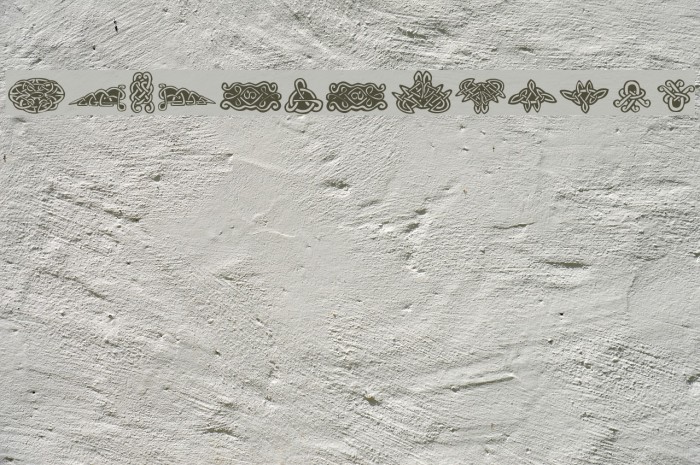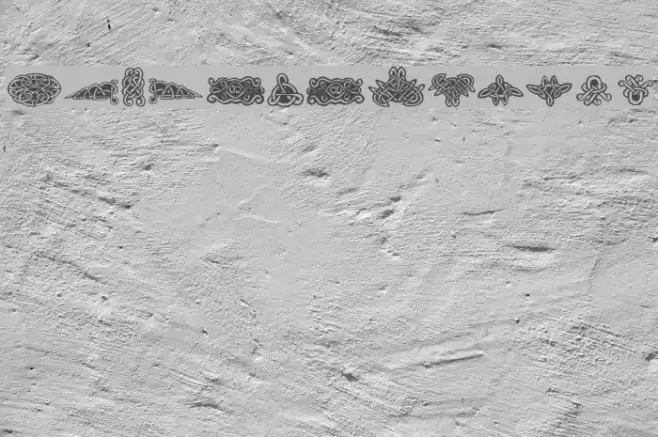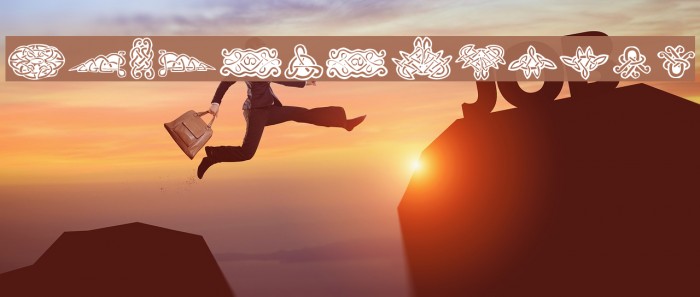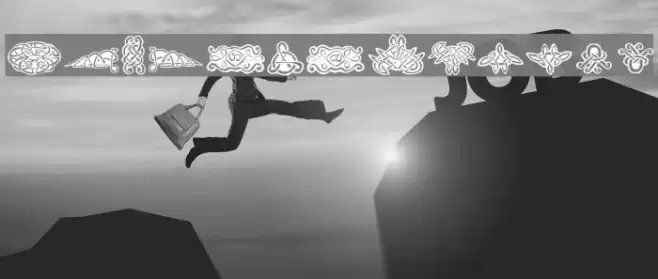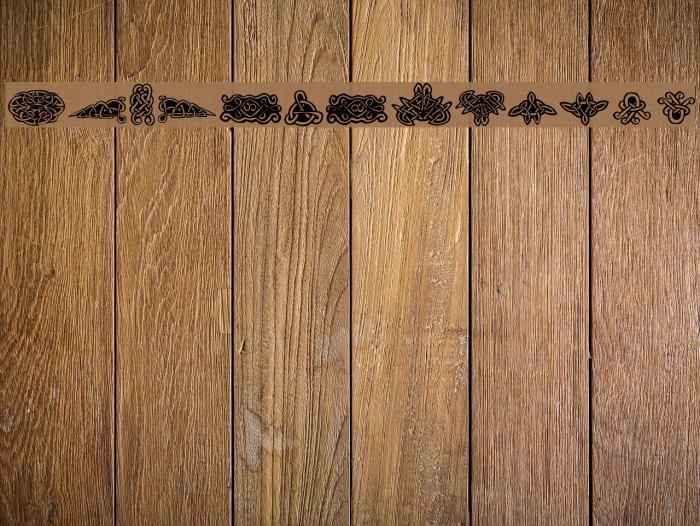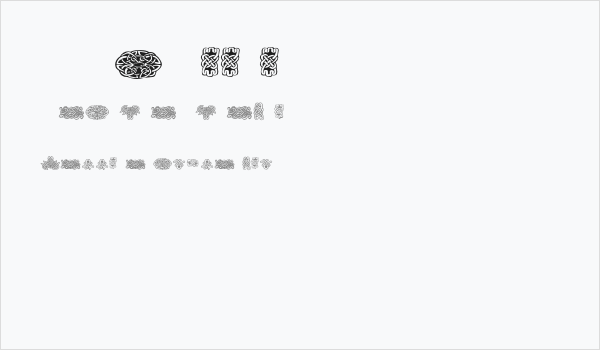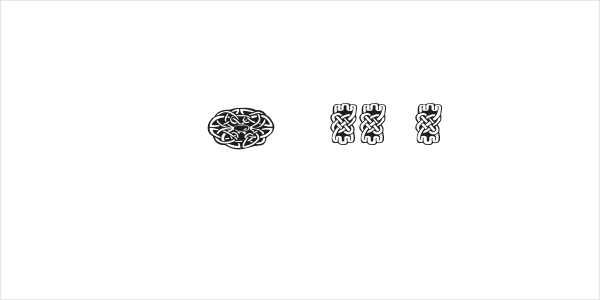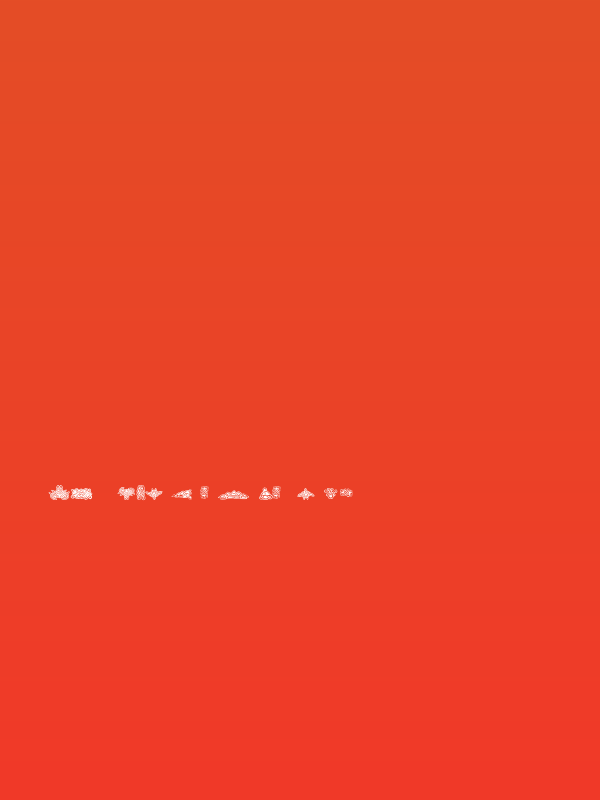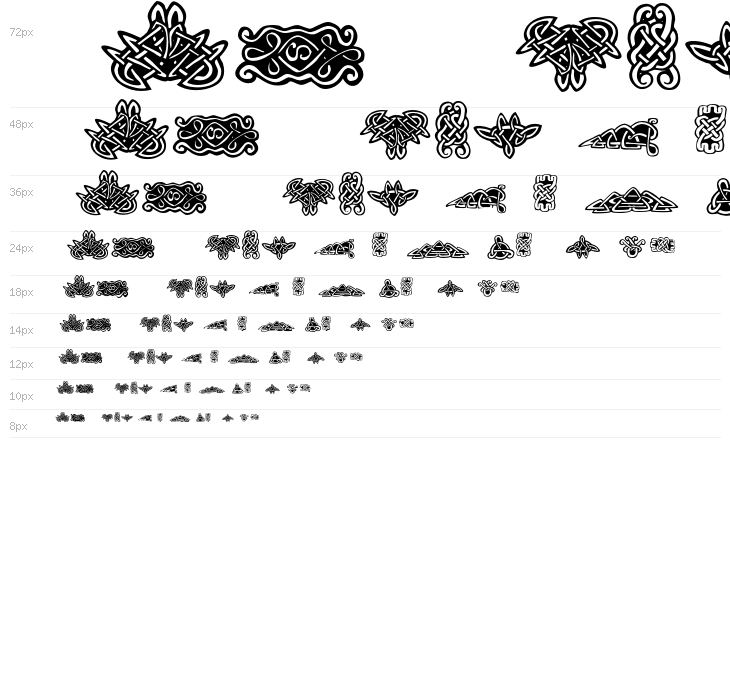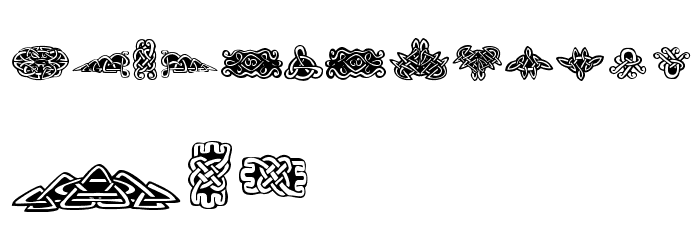
FE-TattooNo.1 Font
FE-TattooNo.1 Description
This font features intricate, decorative designs reminiscent of traditional tattoo art. Each character is crafted with elaborate patterns and interwoven lines, creating a sense of depth and complexity. The style is bold and striking, with a strong emphasis on ornamental aesthetics. The characters are not typical alphanumeric symbols but rather unique artistic representations, making it ideal for creative and decorative purposes. The font's design is consistent throughout, maintaining a cohesive look that is both visually captivating and artistically expressive.
| Use Case | Logos, Decorative art, Tattoos |
| Proposed Projects | Ideal for tattoo designs, decorative art projects, branding for creative industries, and unique graphic design elements. |